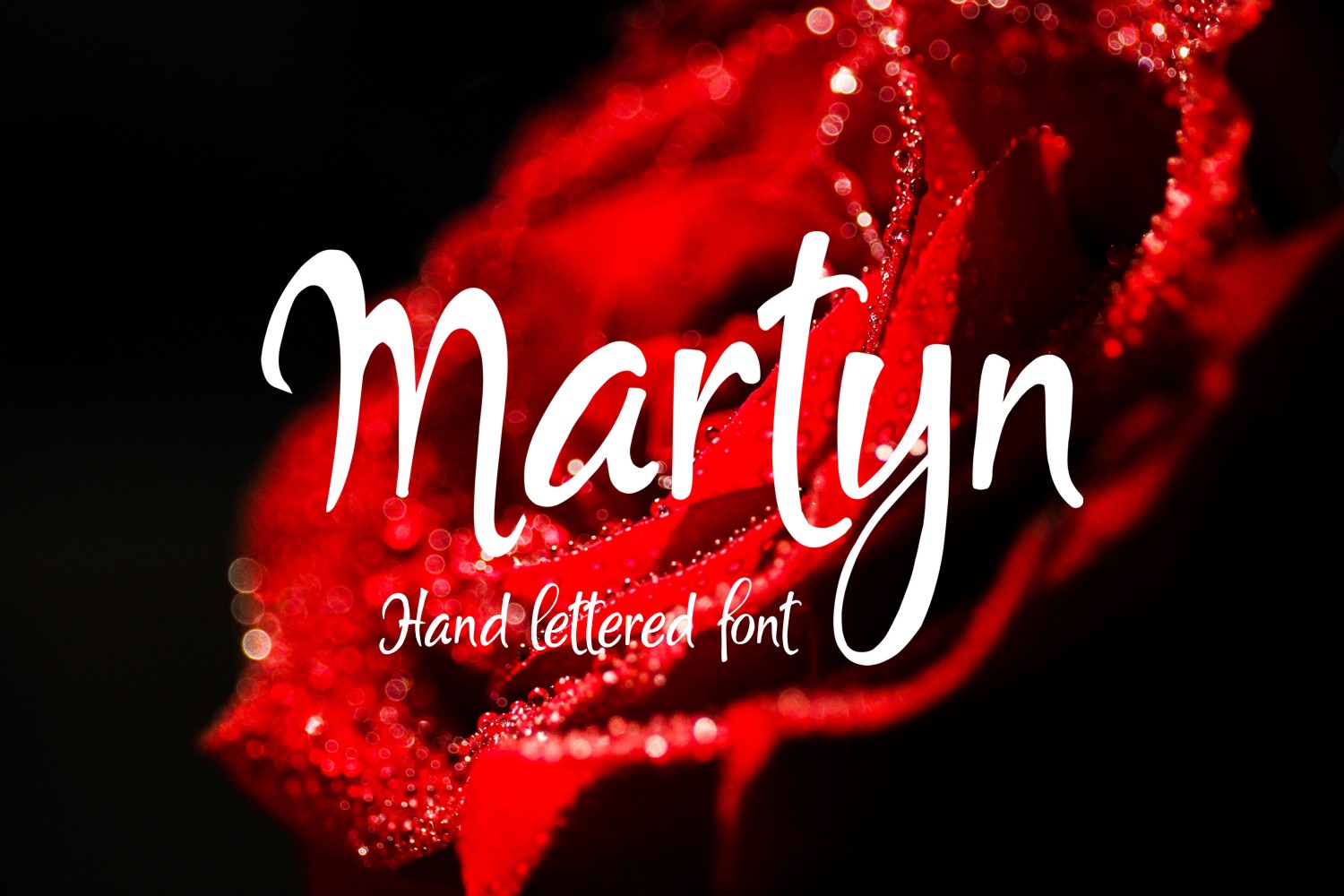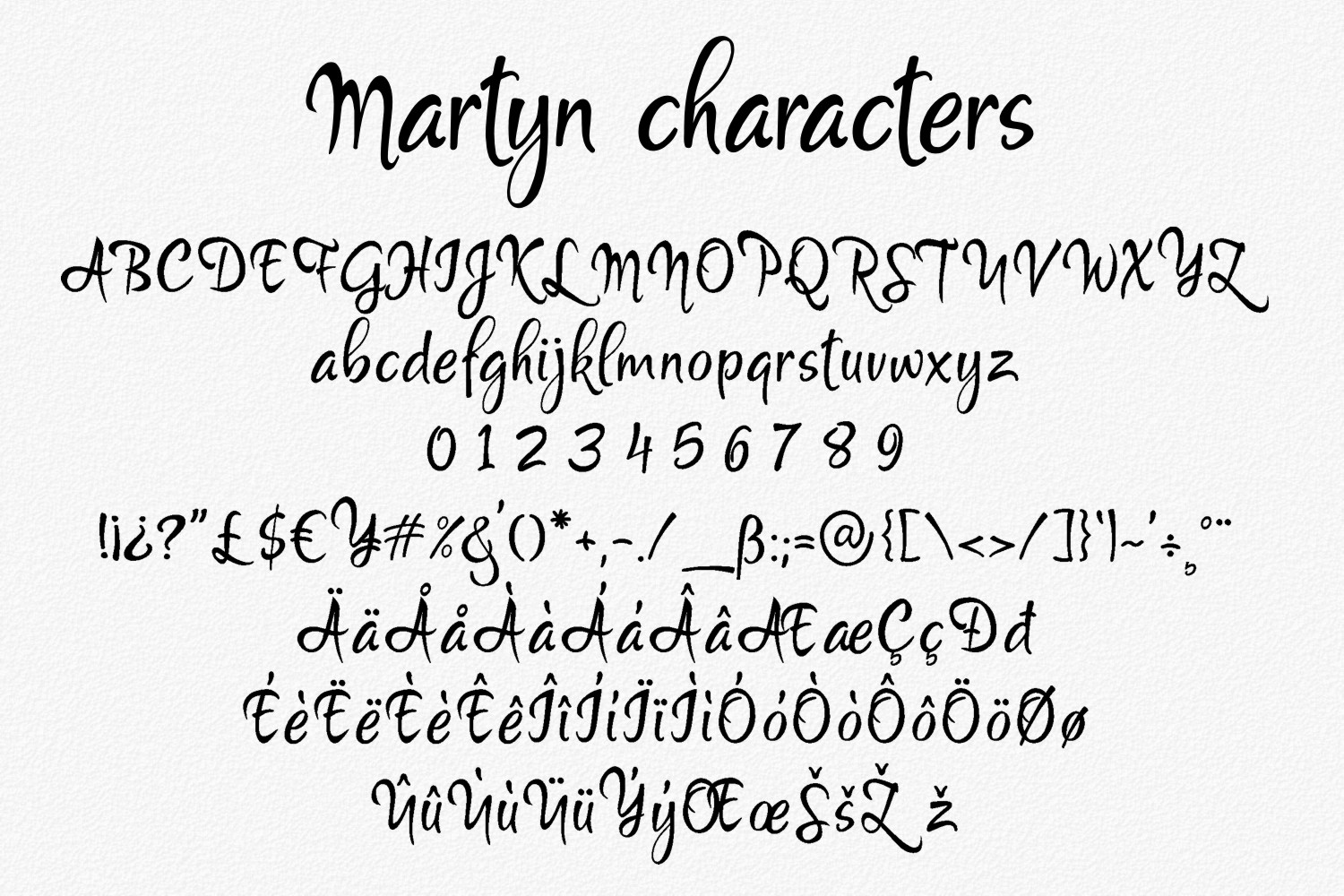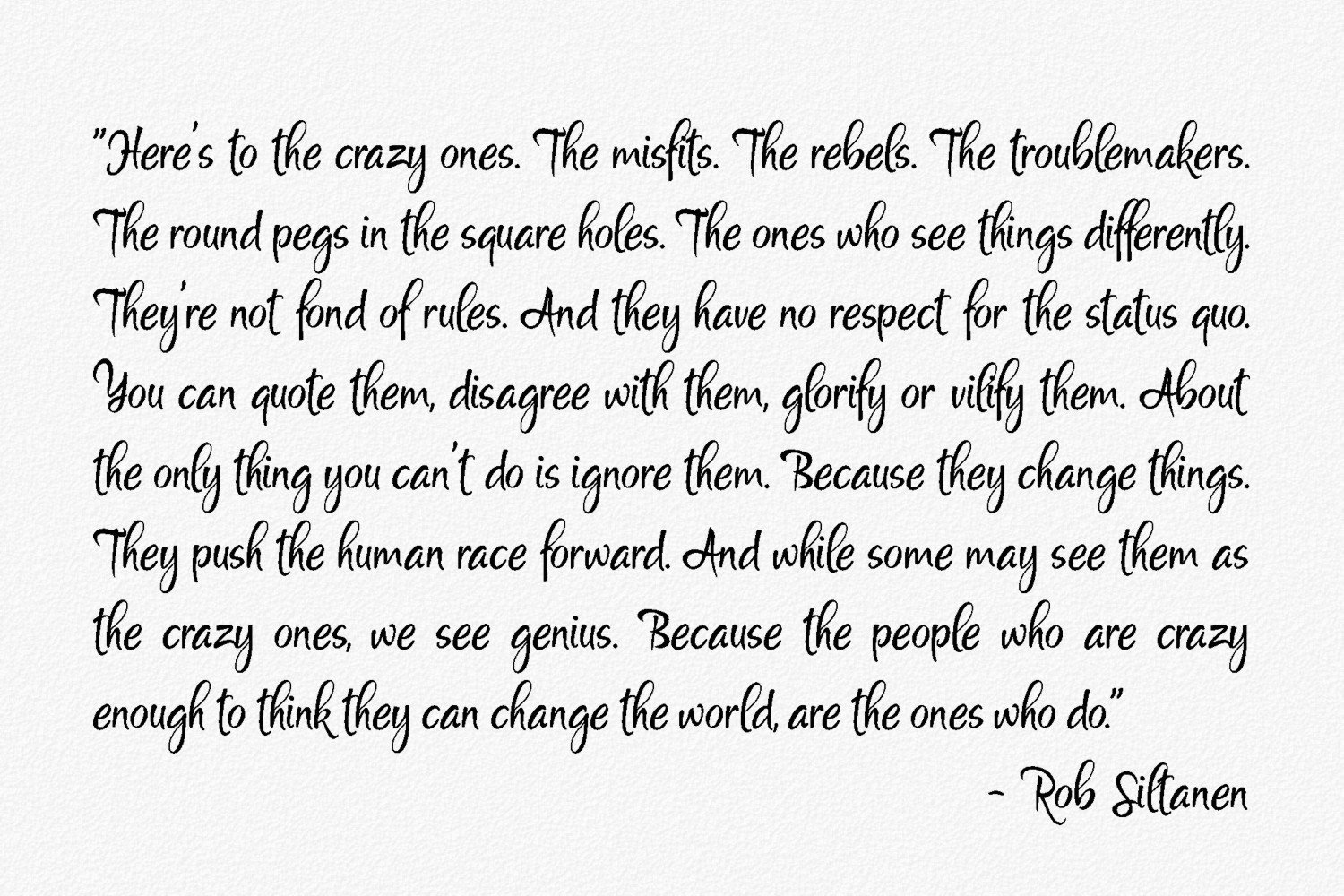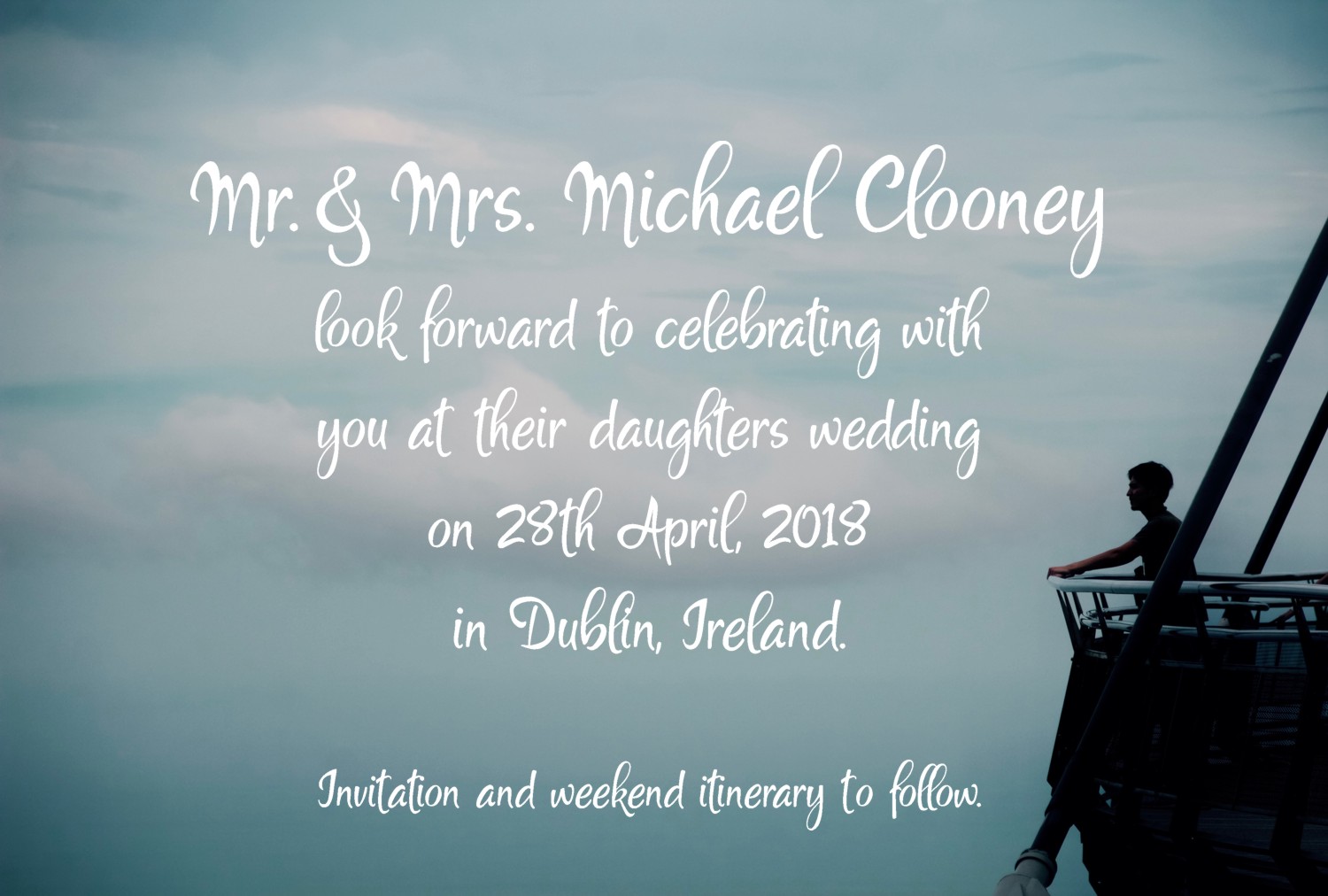
Martyn Font
About Martyn Font
Martyn is a beautifully constructed script font, perfect for a large array of uses. With thick strokes and modern styling, this font can complement a wide range of designs.